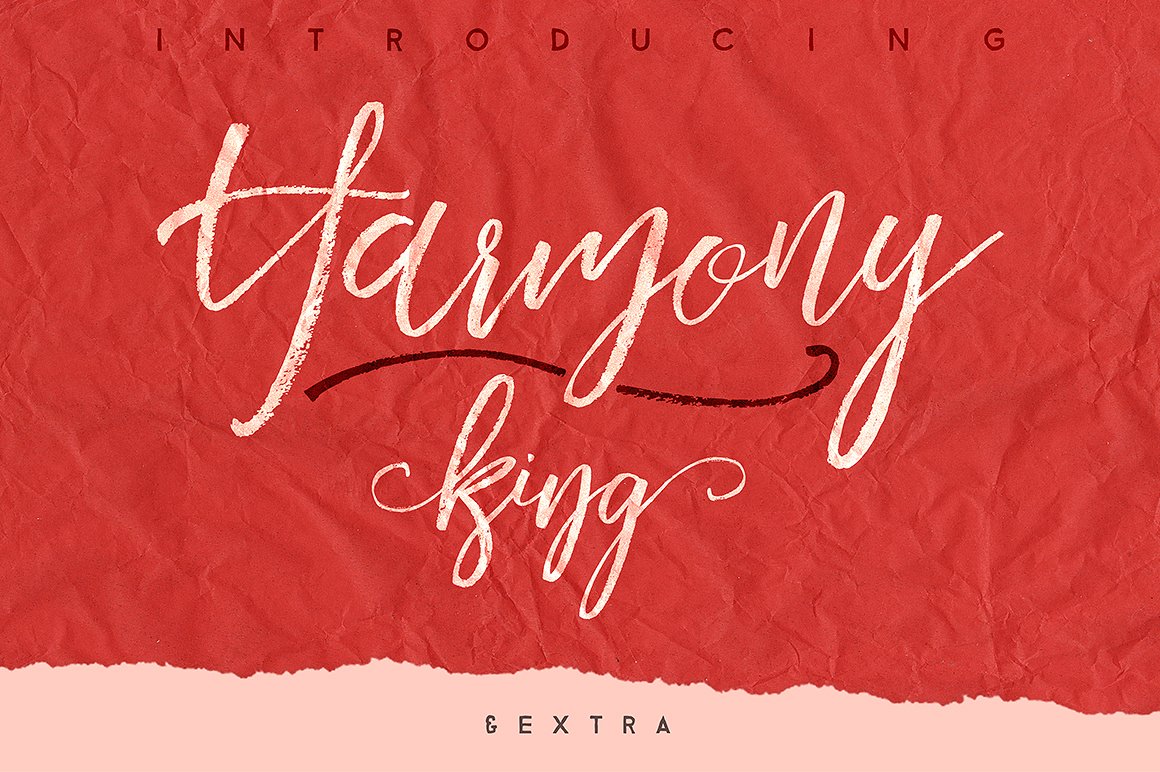
Harmony King
Harmony King Script Font
Firstly thank you for looking. Please indicate whether your comments and request for my deficiencies. I made this font with brush. Natural traces left by the brush. I took pictures of the individual in a detailed way to be of better quality. There are quite a few missing font if you like, of course I did them finished. Harmony king have international letters. I hope I have now formally six new character I designed the way they are going, because you’d be pleased I really liked it. I add the numbers and symbols of all presentations available. I decided to decorate in a separate font files, it is very difficult because the master is made the same. You can put on you were want. It was added as disposable paper design.Harmony king is use the suitable for use anywhere you can imagine.
Harmony King